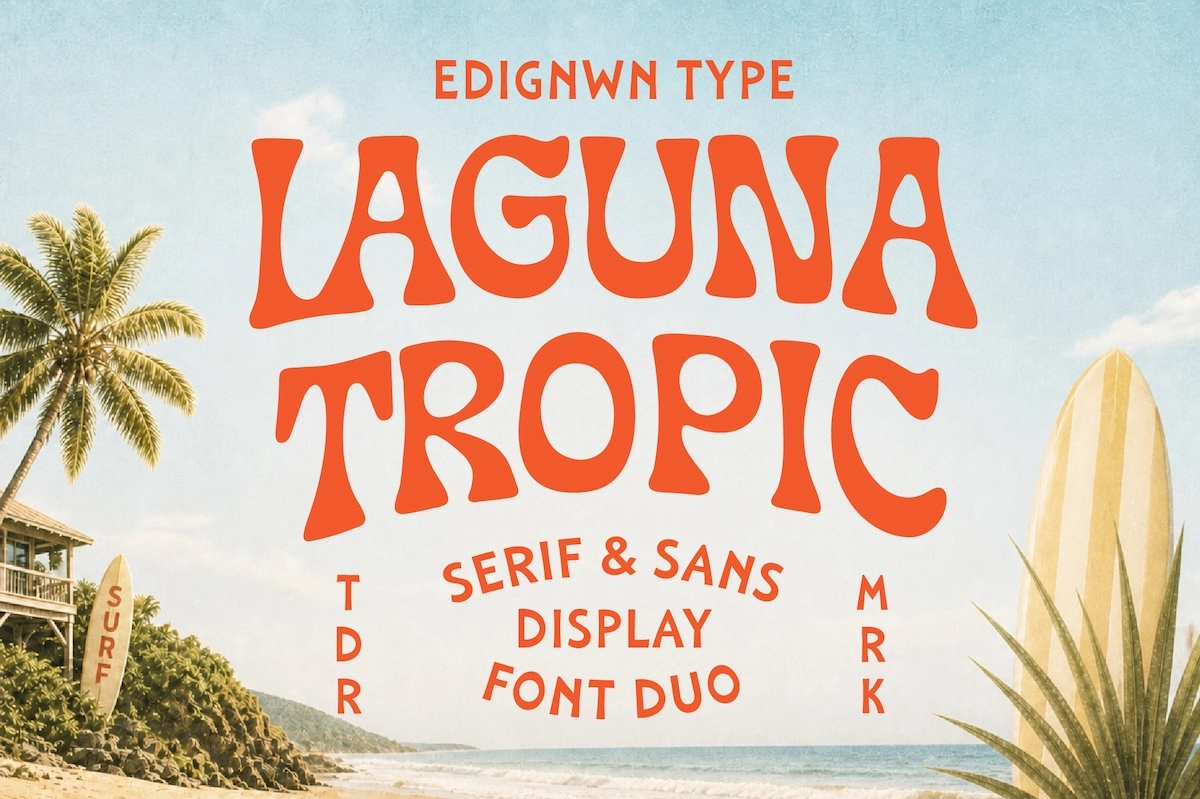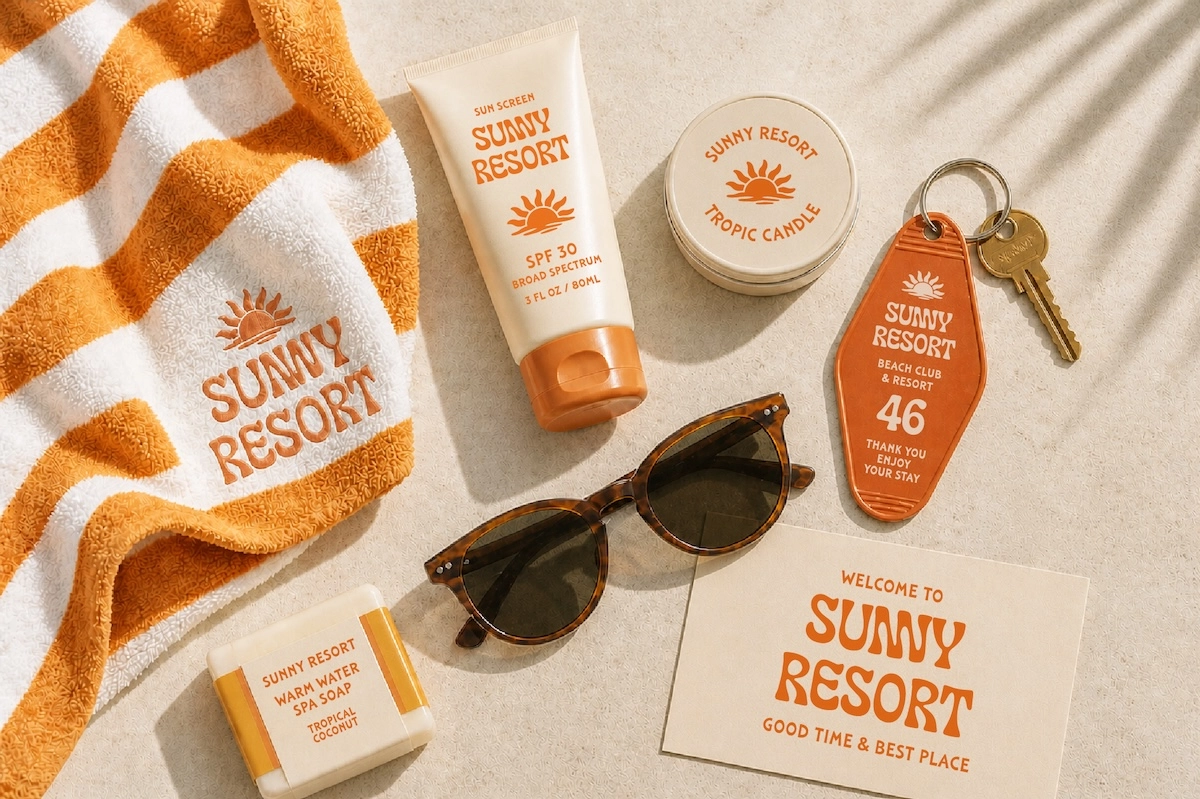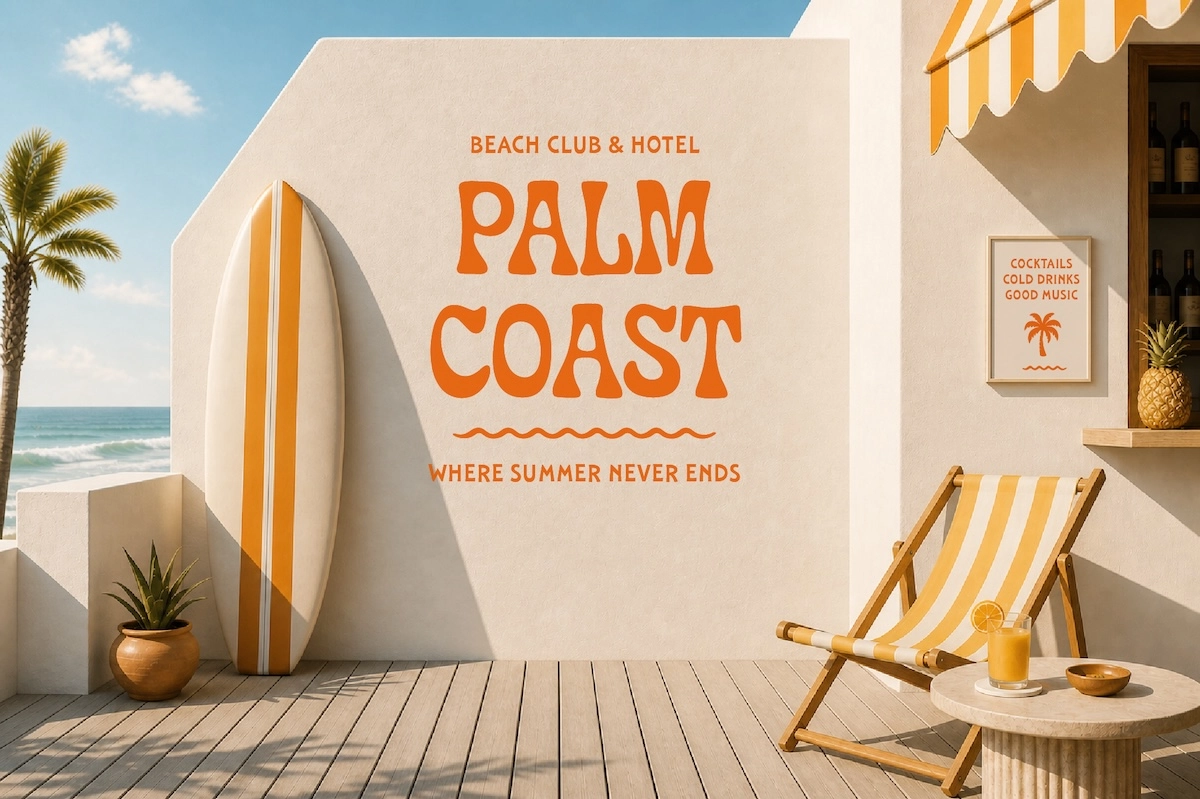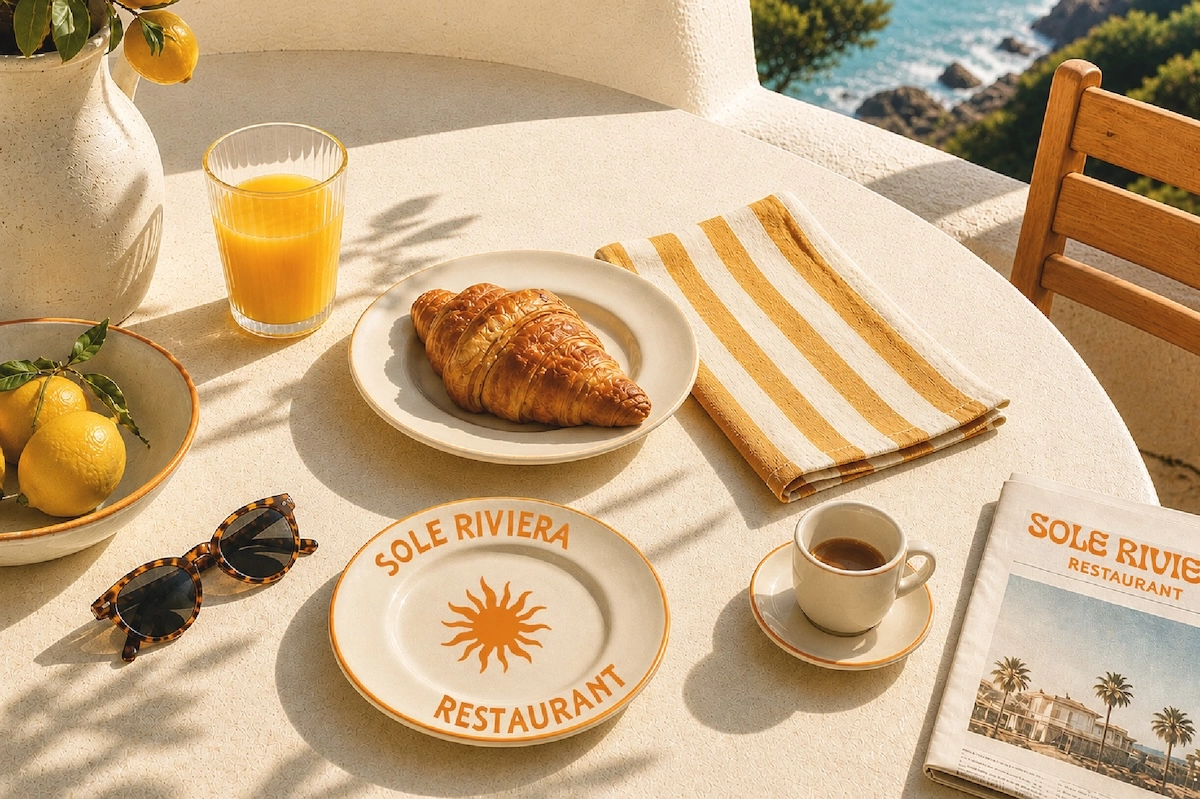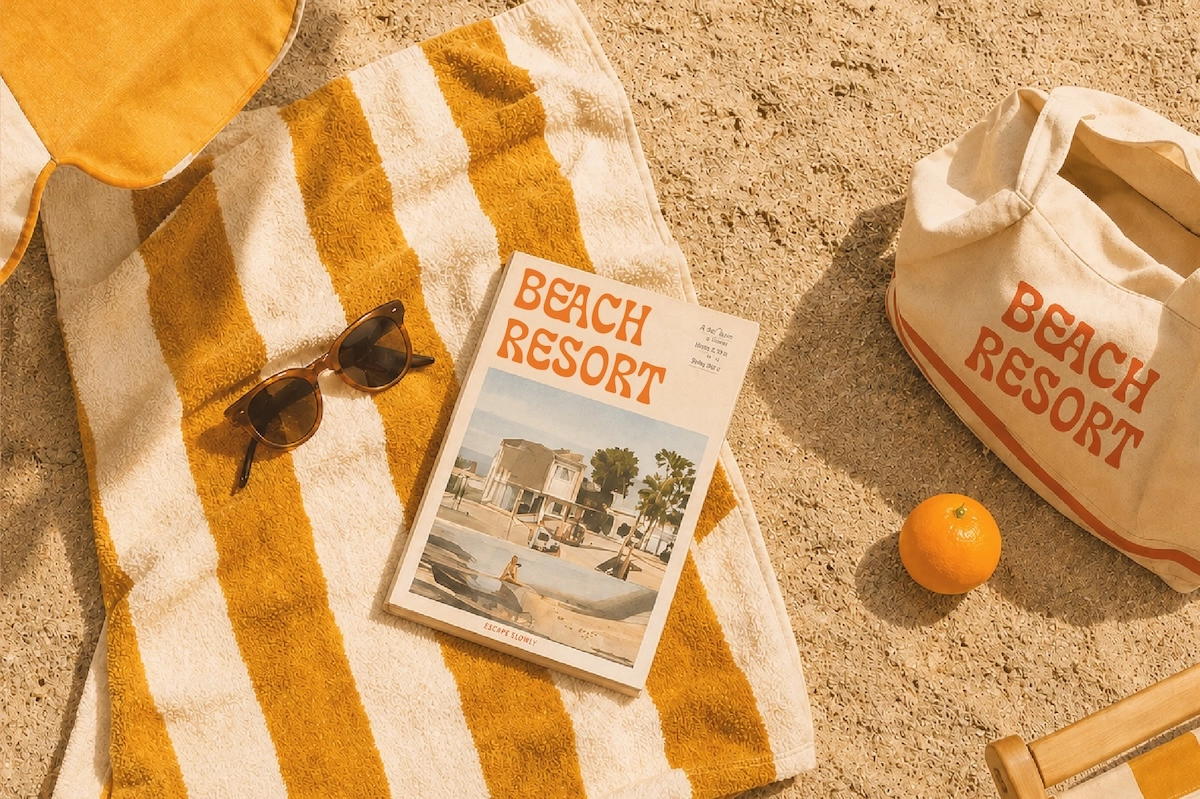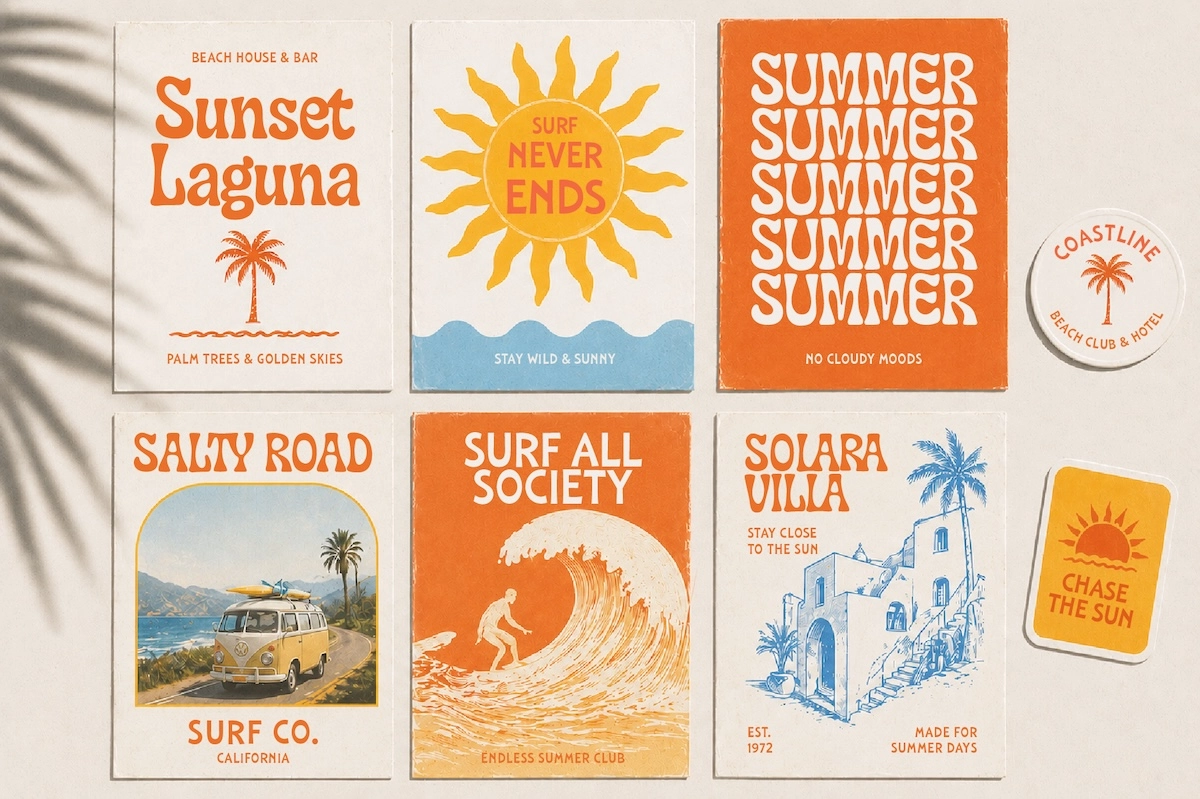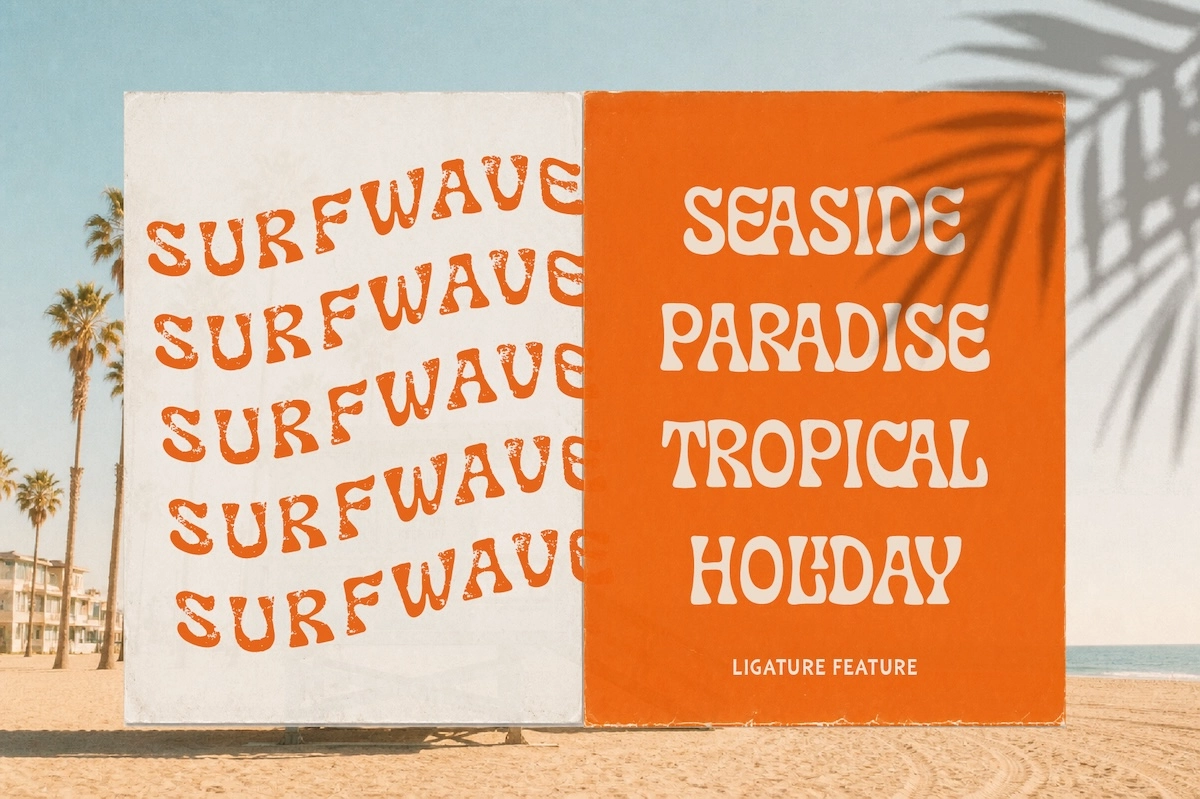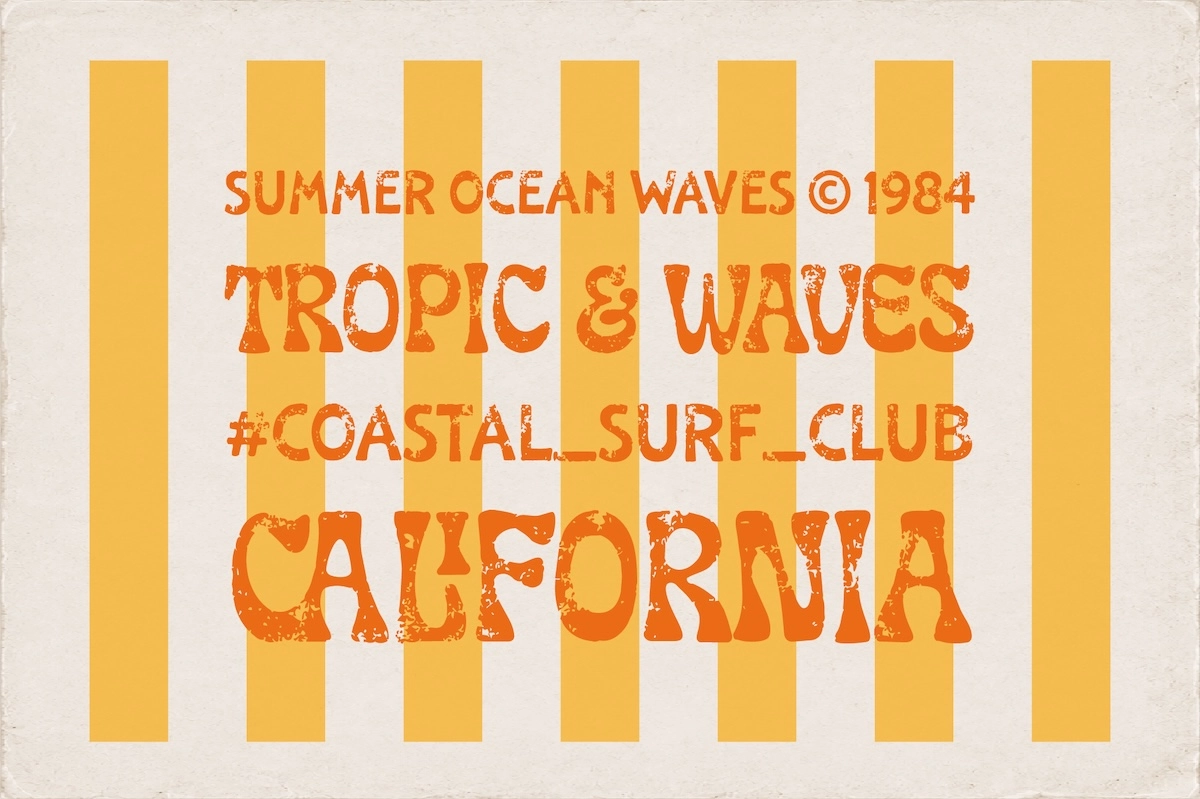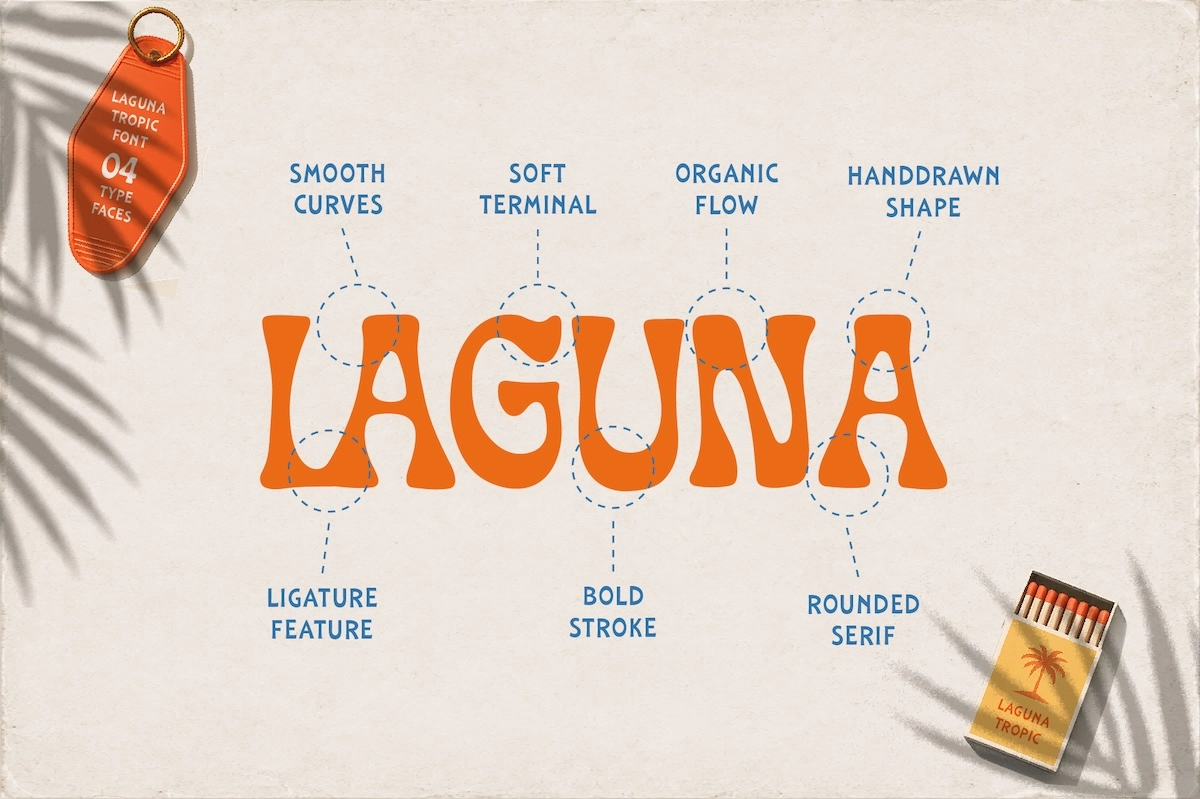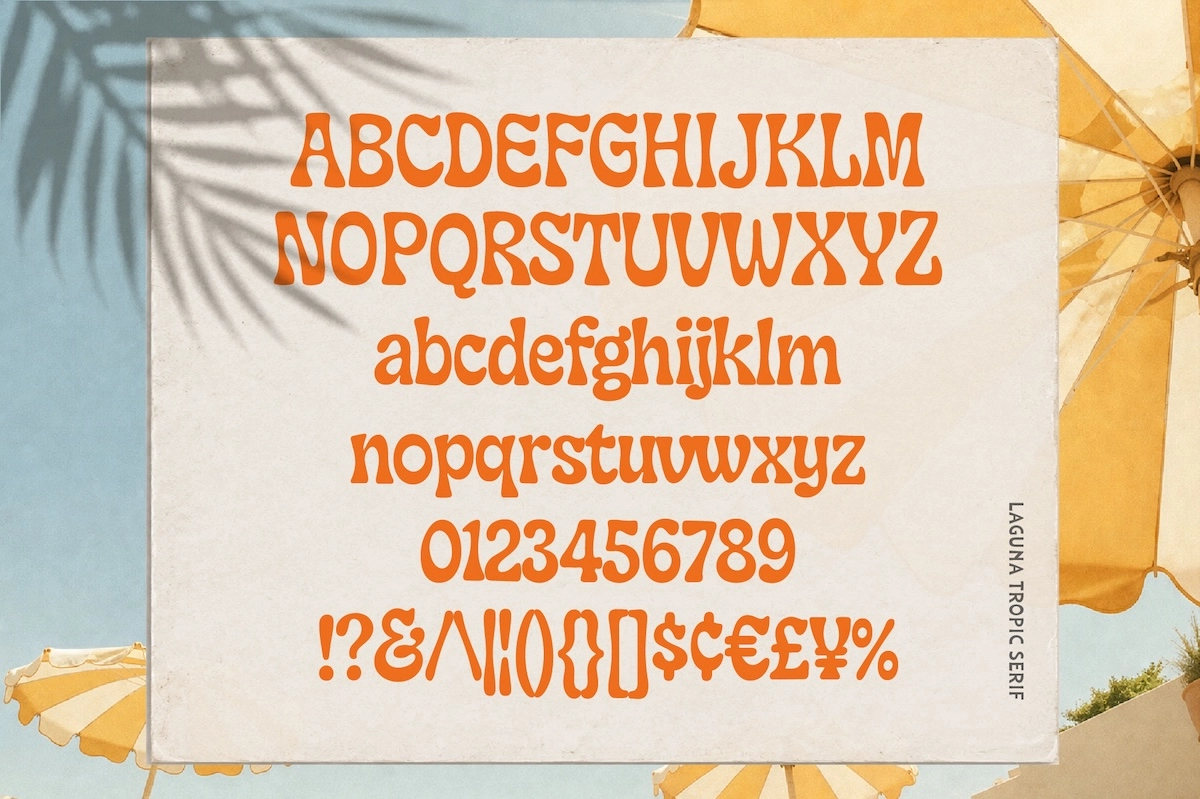
Laguna Tropic – Tropical Display Font Duo
This tropical display duo pairs a bold rounded serif with a cleaner all-caps sans, giving designers two strong voices for sunny, nostalgic branding. The serif has soft terminals, chunky curves, and a hand-drawn shape, while the sans adds a simpler companion style for supporting text and compact layouts.
Laguna works well for resort branding, surf posters, beach club logos, apparel graphics, travel postcards, packaging, café menus, hotel signage, summer event flyers, stickers, editorial headers, and coastal product labels. It is especially suited for vintage beach visuals, laid-back hospitality projects, and bold layouts with an orange-sun, palm-shadow kind of attitude.
- 2 typefaces: Serif & Sans
- 2 styles for each typeface: Regular & Textured
- Serif: Uppercase & Lowercase
- Sans: All-caps
- Numerals, symbols & punctuation
- Ligatures in Serif